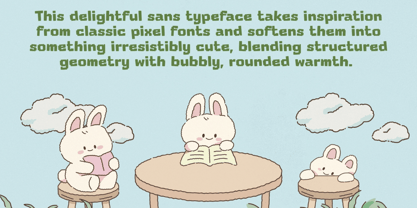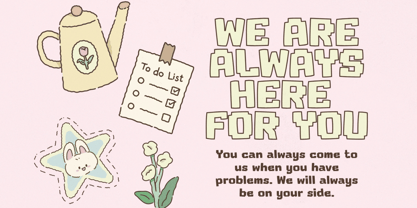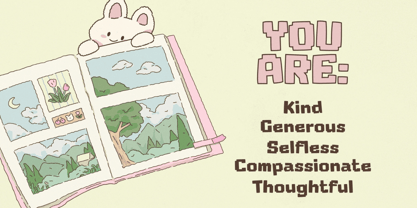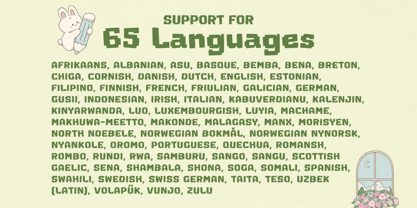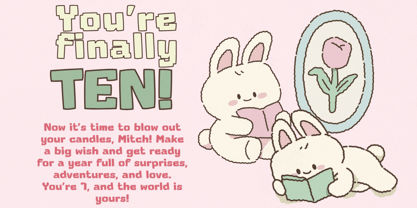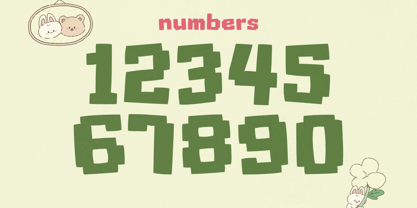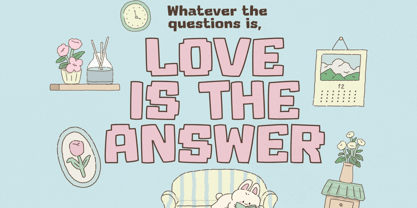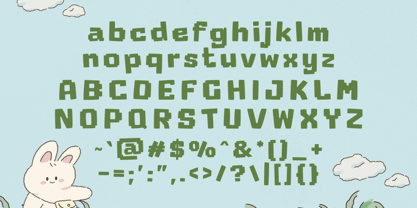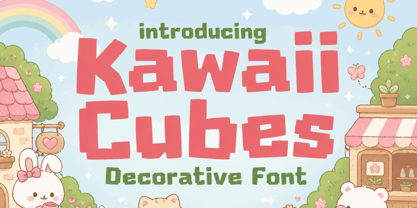
Kawaii Cubes
Kawaii Cubes is where playful charm meets pixel-perfect personality. This delightful sans typeface takes inspiration from classic pixel fonts and softens them into something irresistibly cute, blending structured geometry with bubbly, rounded warmth. Every letter feels like a tiny character—crafted to spark joy, radiate friendliness, and bring a sense of lighthearted fun to your designs.
Rooted in the heart of kawaii culture, Kawaii Cubes transforms simplicity into expression. Its clean sans foundation keeps things modern and versatile, while subtle pixel-like details give it a nostalgic digital twist. The result is a font that feels both fresh and familiar—perfectly balancing clarity with character.
Whether you're designing for kids, creating social media graphics, building a playful brand, or adding personality to packaging, Kawaii Cubes delivers charm in every glyph. It shines in logos, stickers, posters, games, and anything that calls for a soft, cheerful aesthetic.